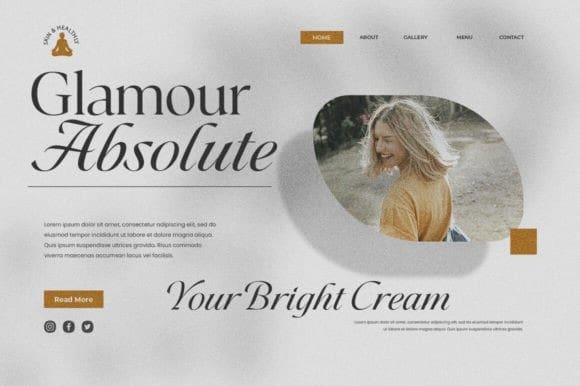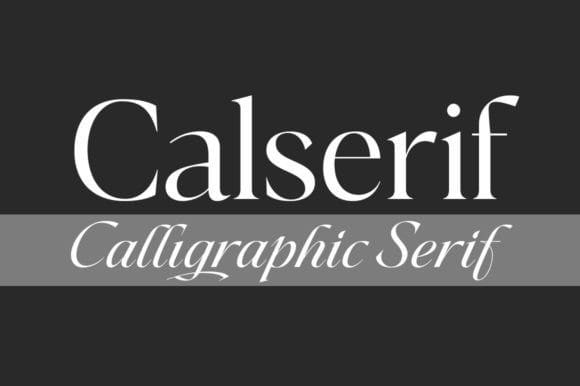
Calserif Font
Calserif Font is a serif font combined with a calligraphy serif font. With its blend of classic elements and contemporary designs, this serif family has two versions, a choice of regular serif styles and italic calligraphy styles.
These fonts are perfect for your design needs such as making nostalgic but still clean and elegant designs such as headlines, magazines, logo designs, packaging, editorials, invitations.